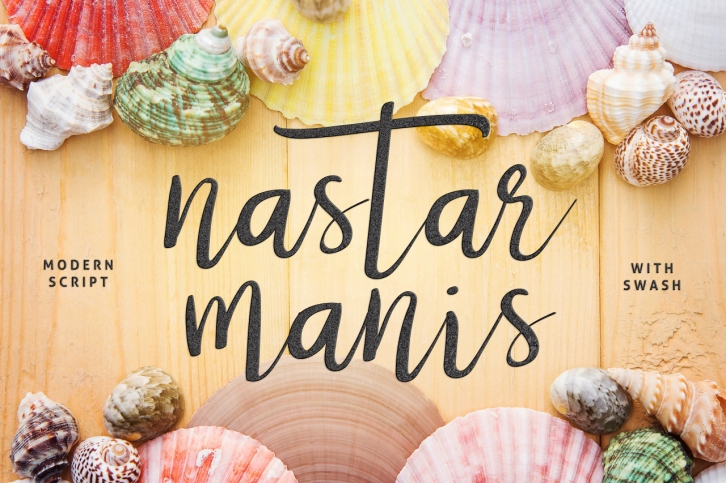
Nastar Script + Swash is a beautiful font that was designed by Graphicfresh. It's a great choice for designers and creatives who need such a font. It was released on January 27, 2018 and the file size is 13.33 MB. Nastar Script + Swash may give a more youthful, expressive and casual look to your project. It is a very beautiful, refined, elegant, and high-quality font.